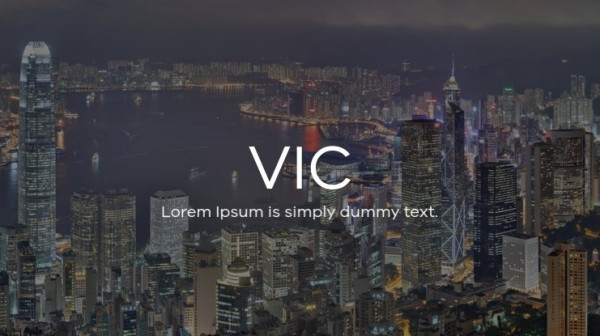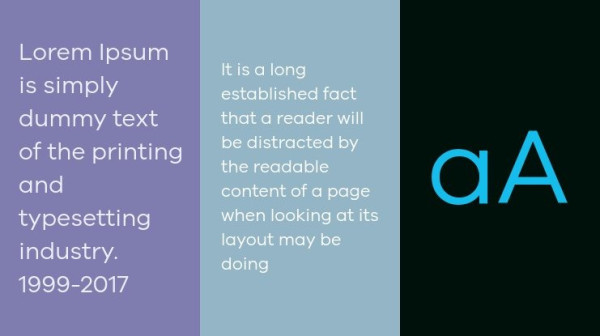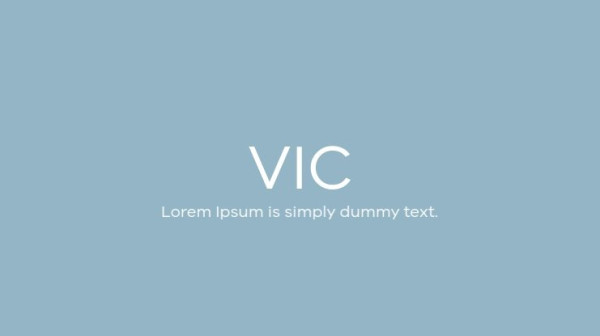
VIC Font, is a sans serif stunning when combined or separately. This sans serif font style is legible and stunningly designed. This font was created for all forms of business and branding such as clothing, logos, skate boards and others according to your needs.
VIC Font
| Designer Name: | Rene Bieder |
| Classification: | Sans Serif Fonts, Style / Aesthetic Fonts |